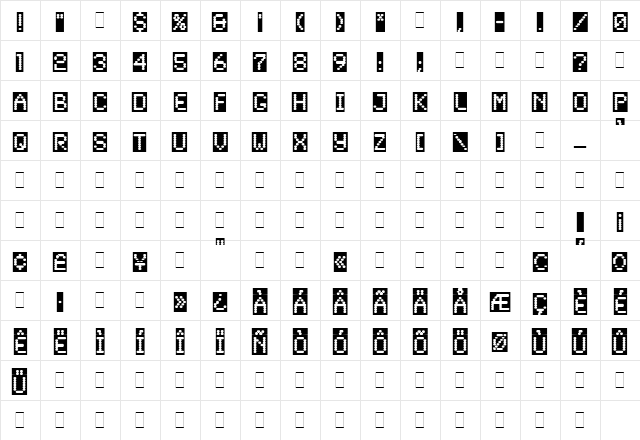
Complete SynchroReversed Plain glyph index. Displaying only characters natively supported by SynchroReversed Plain font.
SynchroReversed is a composed and adaptable typeface that performs quietly and consistently across a wide range of design contexts.